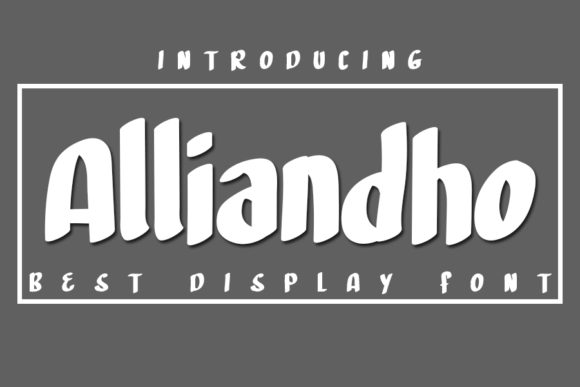
Alliandho Font
**Introducing Alliandho: The Font That Makes Your Designs Shine**
In a world where visual appeal reigns supreme, your designs need to stand out from the crowd. Introducing Alliandho, the bold display font that will elevate your logos, branding, social media, and DIY projects to new heights.
Alliandho is not just a font; it's a statement. Its clean lines and quirky charm will capture attention and leave a lasting impression. Whether you're creating a striking logo, designing eye-catching social media posts, or adding a personal touch to your DIY projects, Alliandho is the perfect choice.
**A Font for Every Occasion**
With its versatility, Alliandho is the font that does it all. Its bold presence makes it ideal for logos and branding, while its playful personality adds a touch of whimsy to social media posts and DIY projects. The possibilities are endless.
Express your creativity with Alliandho and let your designs speak volumes. From sophisticated logos to playful social media graphics, Alliandho will elevate your work and make it shine.
**Designed for Impact**
Every detail of Alliandho has been carefully crafted to ensure maximum impact. Its bold strokes and clean lines create a striking visual presence, while its slightly quirky character adds a touch of personality. The result is a font that commands attention and leaves a lasting impression.
**The Perfect Fit for Creative Visionaries**
If you're a designer, marketer, or creative entrepreneur looking to make a statement, Alliandho is your font. Its versatility and bold character will help you create designs that captivate and inspire your audience.